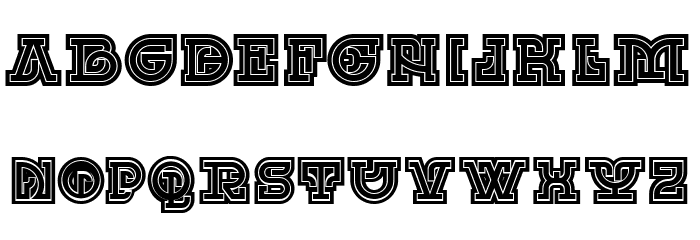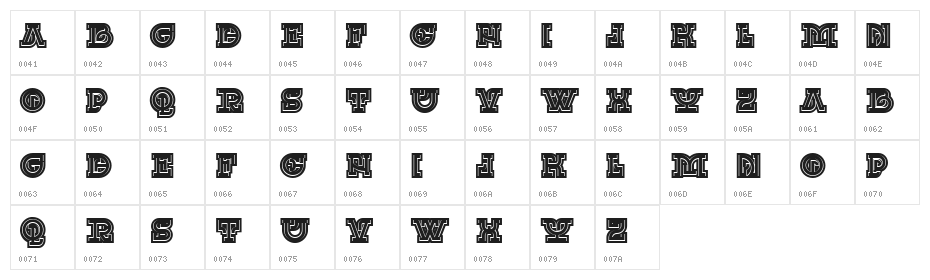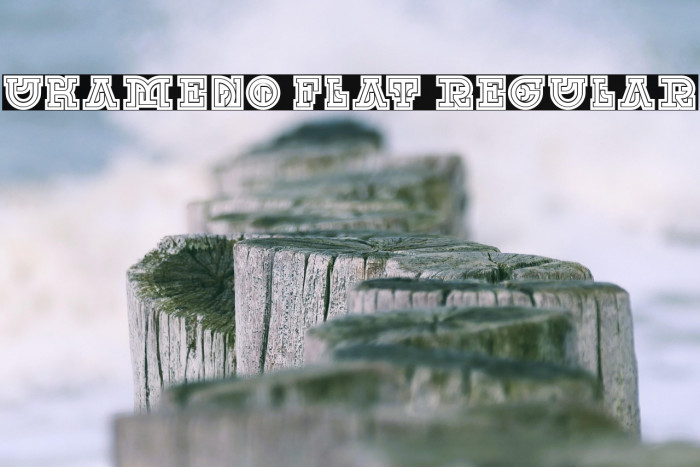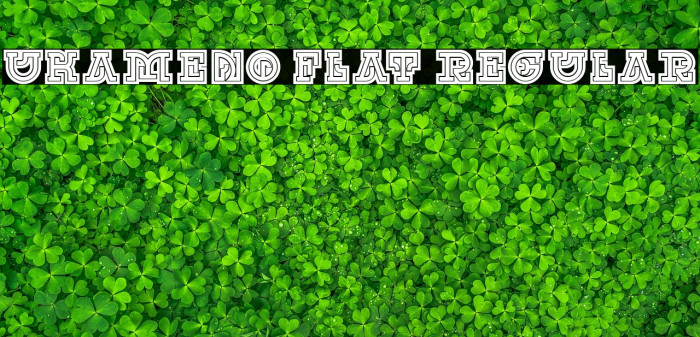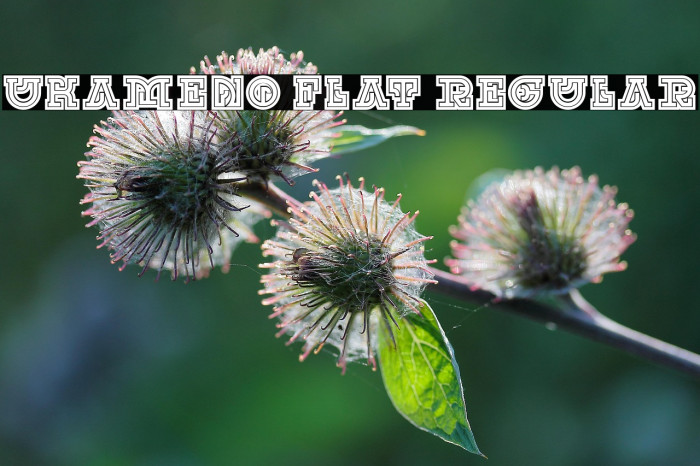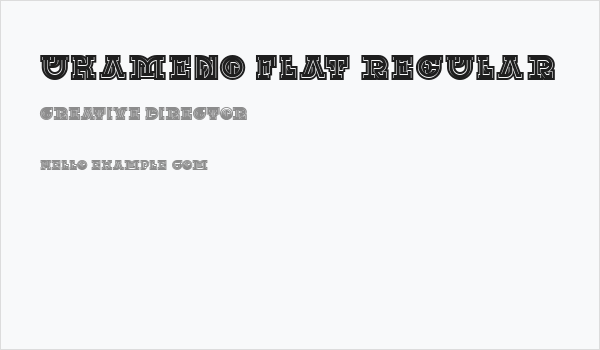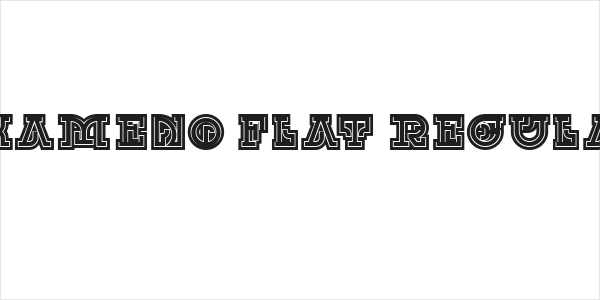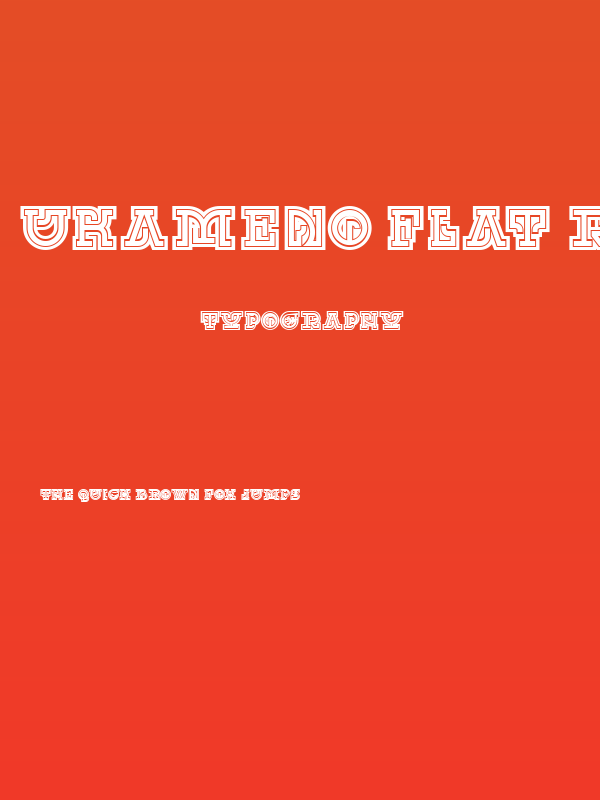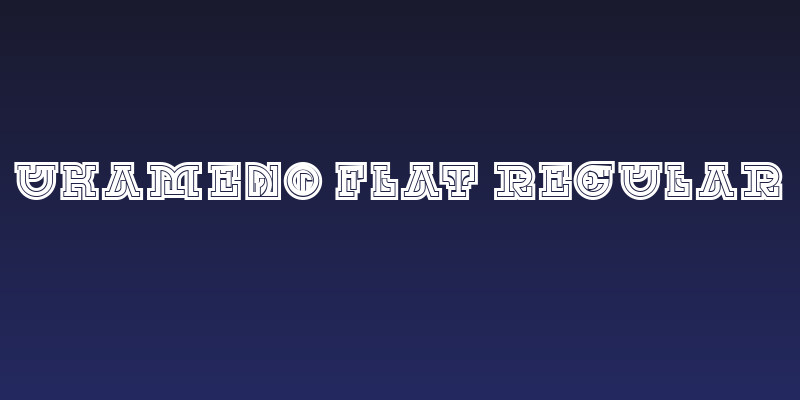
UKAMENO Flat Regular Font
UKAMENO Flat Regular Description
This font exhibits a bold and decorative style with a strong geometric influence. The characters are outlined with a double-layered effect, giving them a three-dimensional appearance. The strokes are thick and consistent, providing a sense of stability and strength. The overall design is highly stylized, with unique cutouts and angles that add a modern twist to the classic letterforms. The uppercase letters are particularly striking, with a uniform height and width that create a cohesive look. This font is ideal for making a bold statement in any design project.
| Proposed Projects | Ideal for posters, logos, branding, and any project that requires a strong visual impact. |